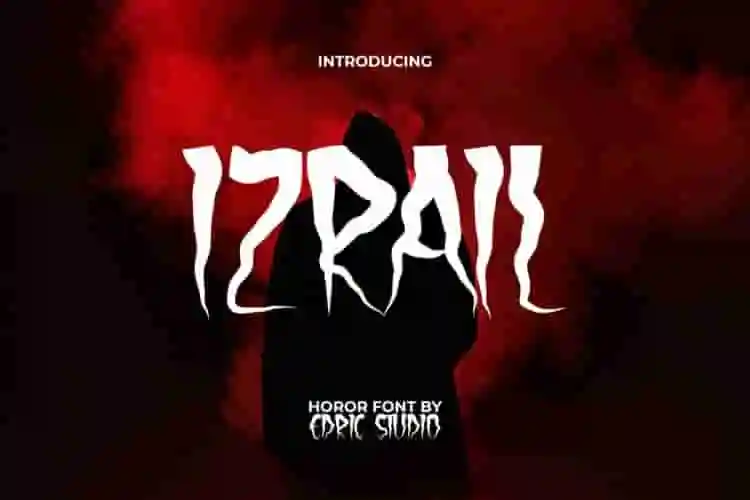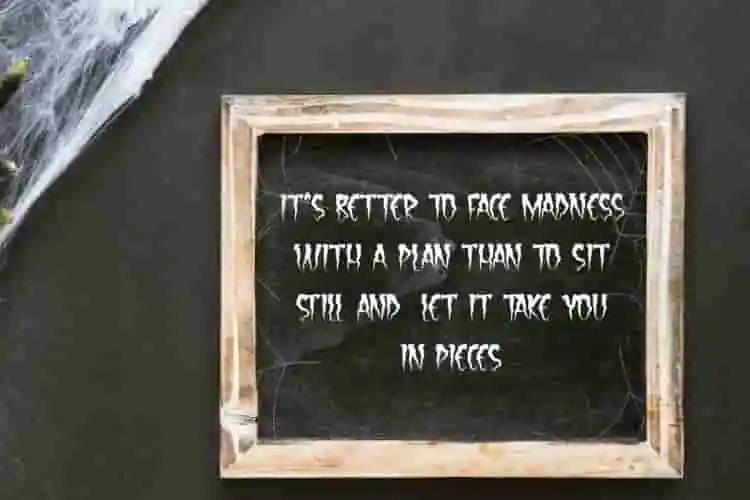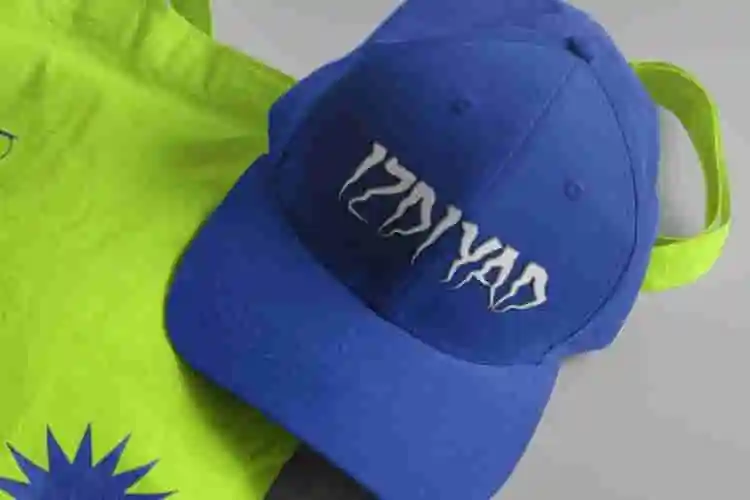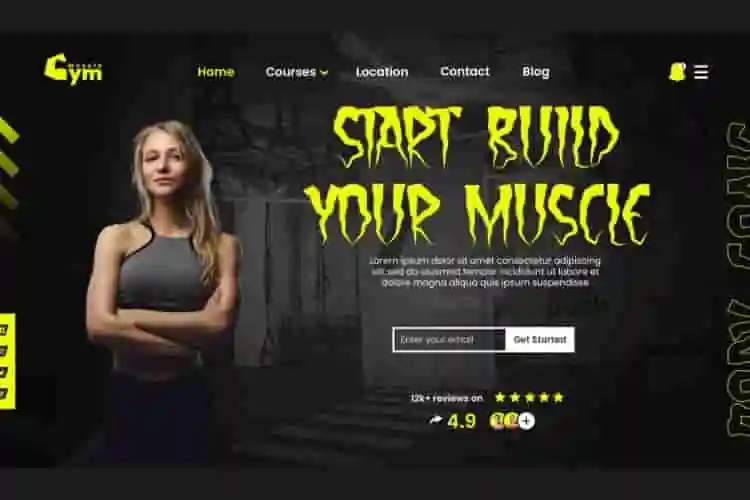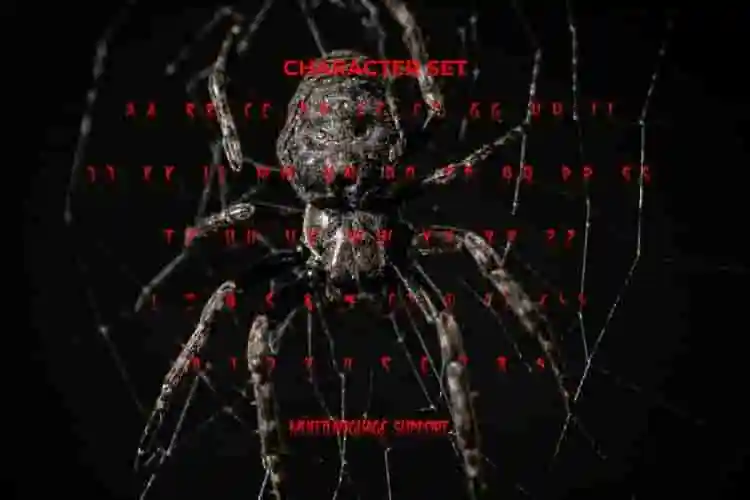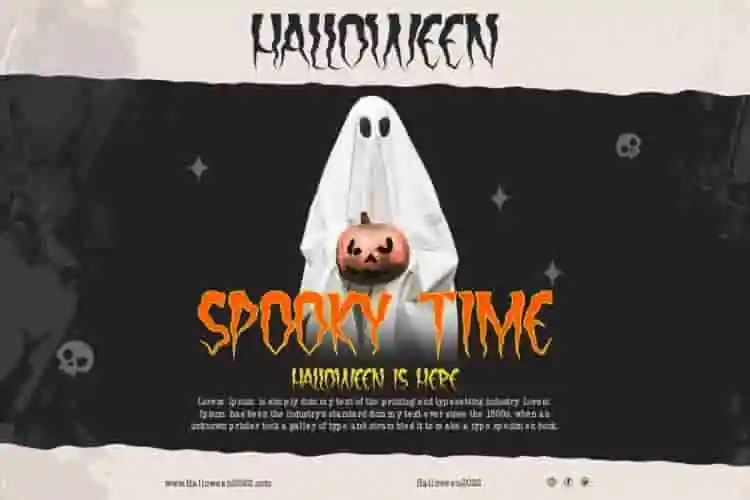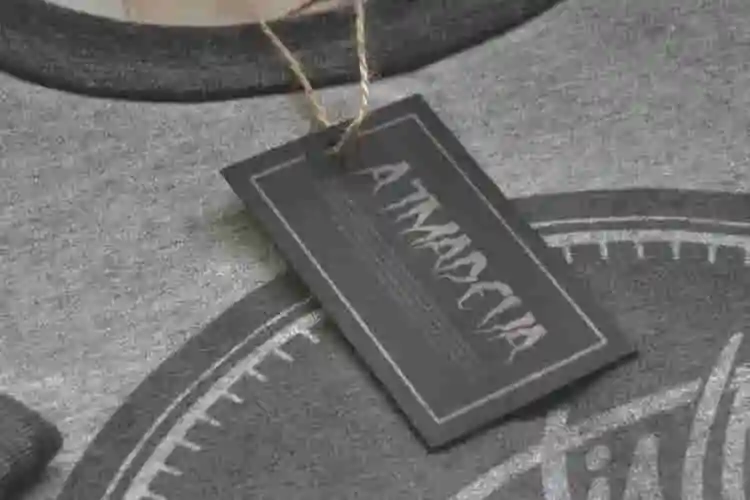
Izrail Font is a blackmetal spooky display font with a horror theme, resembling lightning strikes and strong winds on a dark night. This font gives a creepy and strong impression that can be seen from its sharp and jagged lines and unusual curves. With this unique and modern font style, it is very suitable for use in your creative industry, such as for album covers, blogs, book cover, brand identity, brochures, business card, flyers, headlines, invitation card, logos, mockup design, packaging design, posters, quotes, screen printing hat, stickers, tags, titles, websites, and more.
Izrail Font includes a complete set of ALL CAPS for Uppercase and Lowercase Letters, Numbers, Punctuation, and Symbols. This font is carefully designed down to the smallest detail for ease of use and easy-to-read character display, as well as characteristics that are different from the others so that this font automatically guarantees organic and soulful outcome. Is perfect for apparel, e-sports, event organizer, fashion, film, games, movie, outdoor sports equipment, printing, publishing, sports, sportwear, etc.
Perfect for dark fantasy posters, esports branding, tattoo-inspired merchandise, and anything in between — Izrail Display Font turns every word into a statement.
Designed to display,strength and intensity, Izrail blends traditional blackletter influences with a modern twist, making it highly versatile for print and digital projects.
Step into the shadows with Izrail Display Font — a powerful, gothic-inspired display font made for those who dare to design differently. With its sharp edges, dramatic curves, and haunting presence